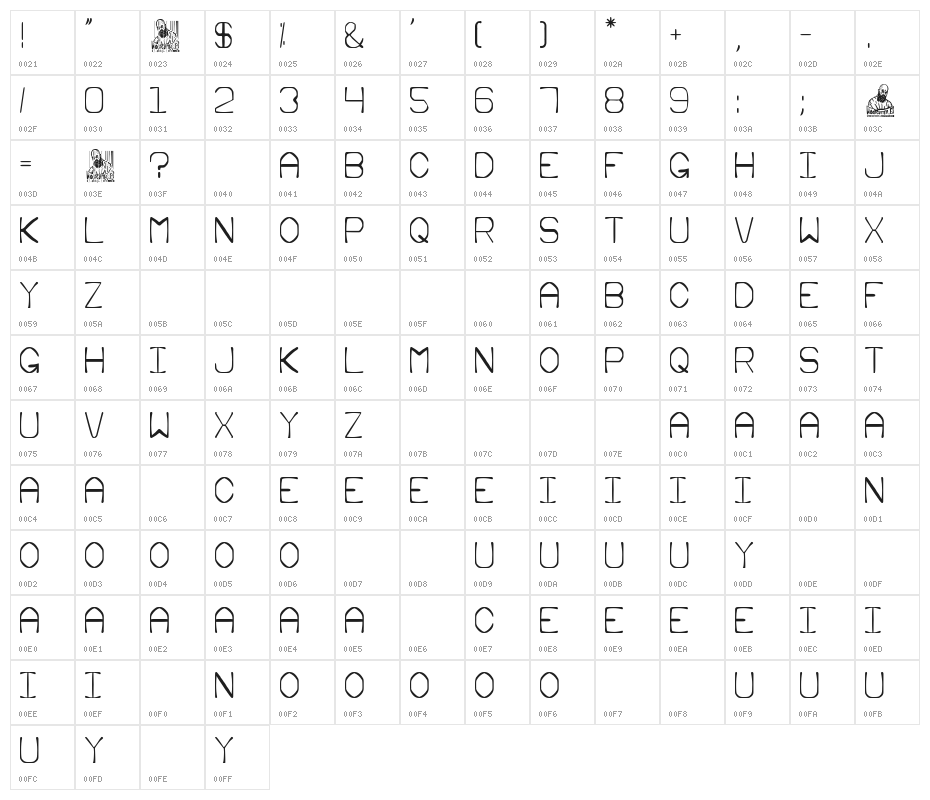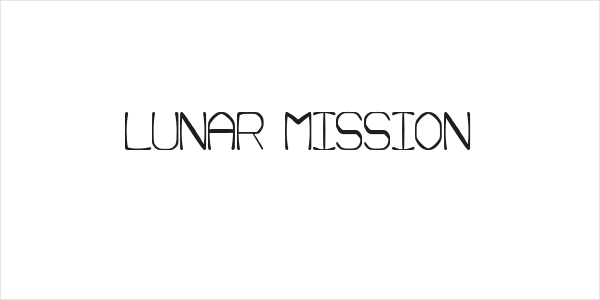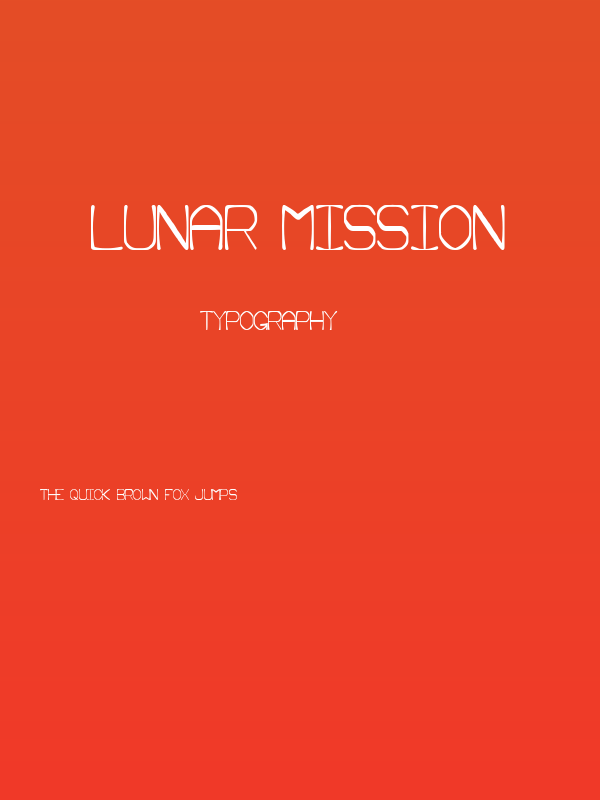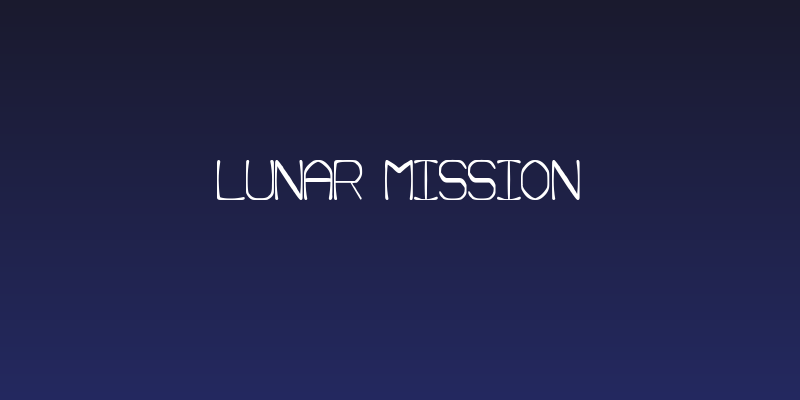
Lunar Mission Font
Lunar Mission Description
A geometric, monolinear sans-serif typeface with rounded corners and a hand-drawn, slightly irregular appearance. The characters are tall and narrow, with consistent stroke thickness and open counters, giving a futuristic yet informal feel.
| Proposed Projects | Science fiction posters, children's book titles, creative branding, event flyers, tech-themed graphics. |